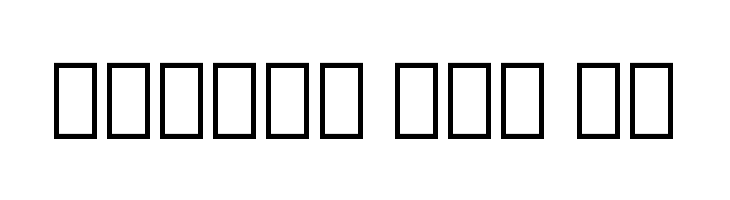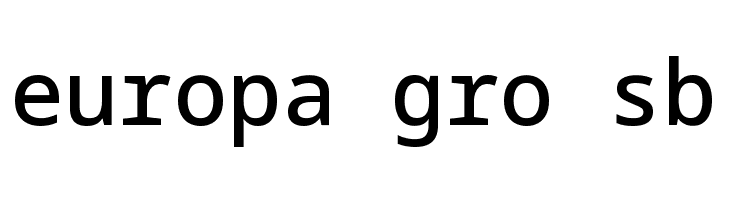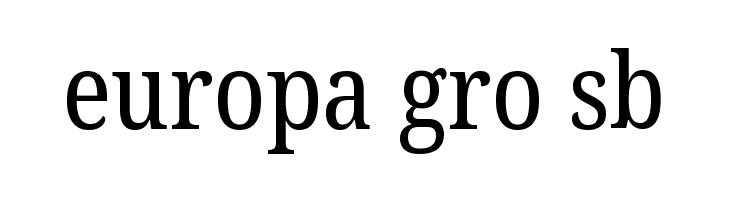
Invalid font with placeholder squares.
A modern, semi-condensed, semi-bold font ideal for clear and readable text.
Condensed sans-serif font for Thai script.
A clean, modern font with uniform stroke width and balanced spacing.
A monospaced sans-serif font with a clean, modern design and medium weight.
A refined serif typeface with a condensed structure, offering elegance and readability.
A thin, extra condensed font for Khmer script, ideal for modern designs.
A classic serif font with semi-condensed, semi-bold, and italic characteristics.
A bold, condensed, and modern font with high contrast and tight spacing.
The image does not contain a valid font.